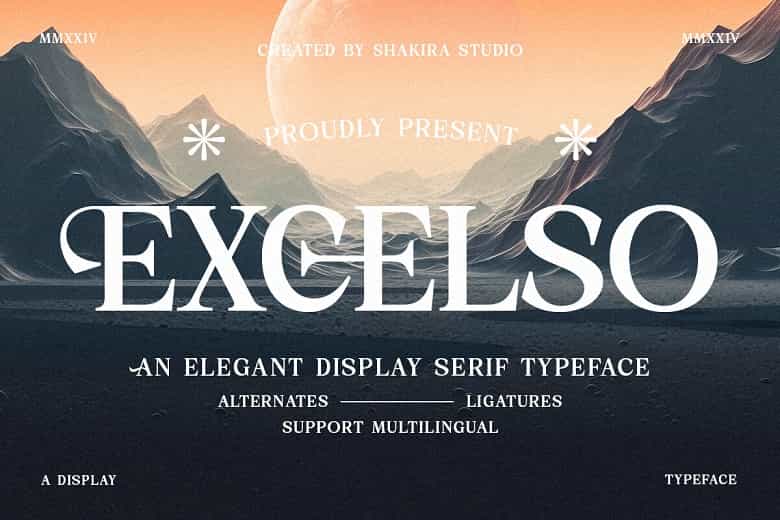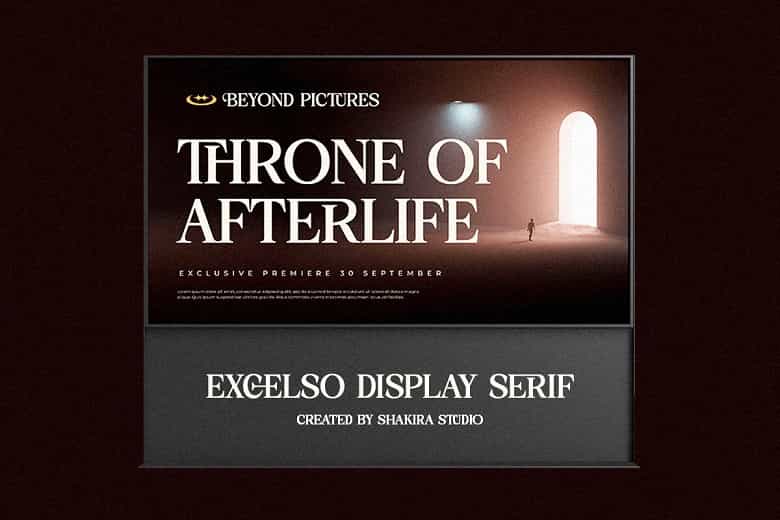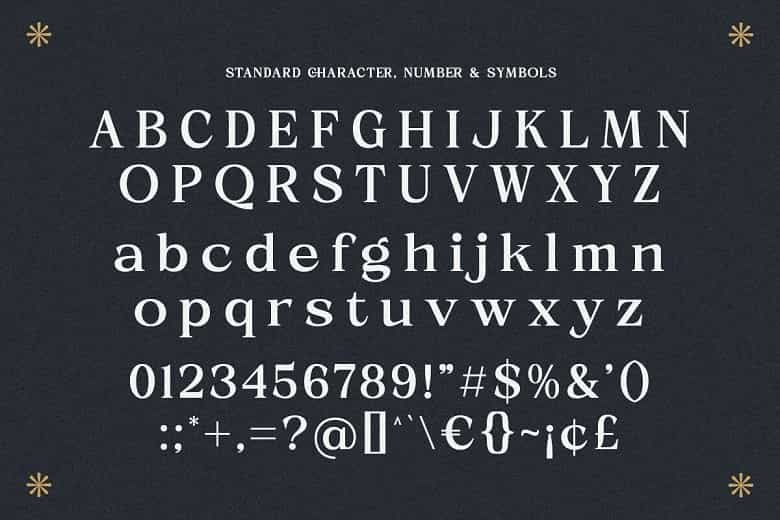
Excelso is a brand new elegant display serif font which delivers the best quality of elegance to add to your designs. Out of the box, the font is provided in both regular and italic styles and finds its applications ranging from editorial to branding purposes.